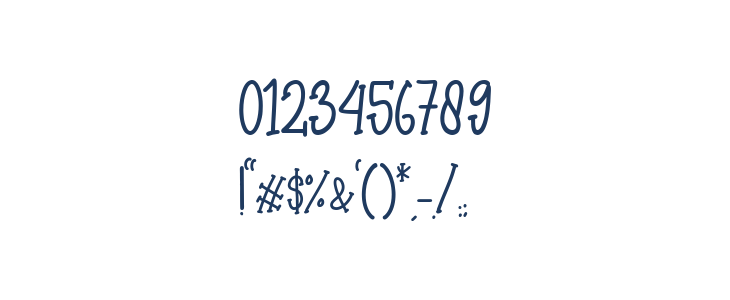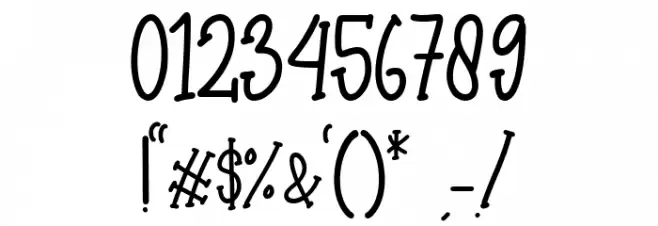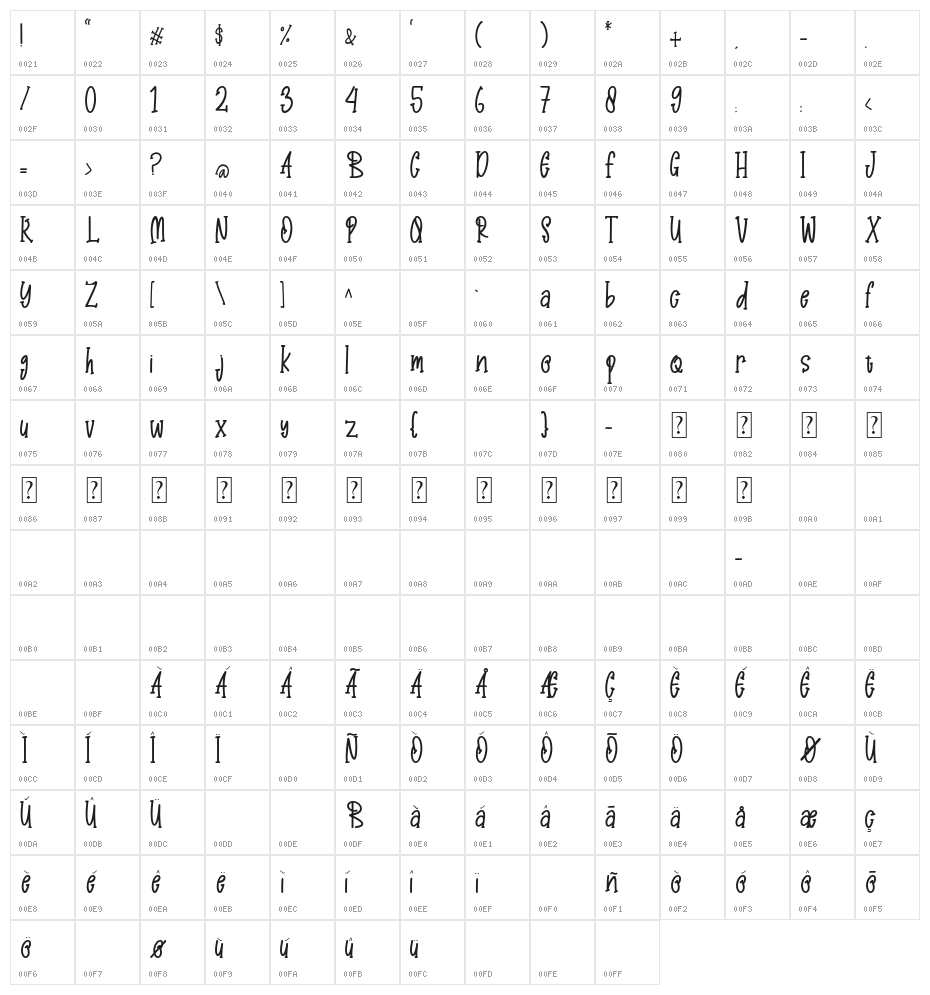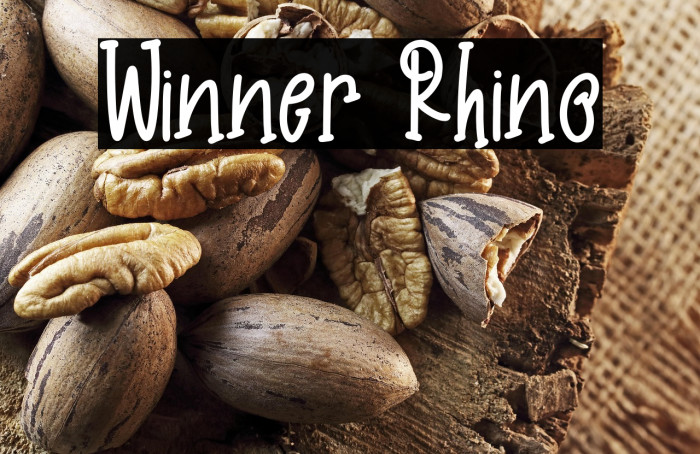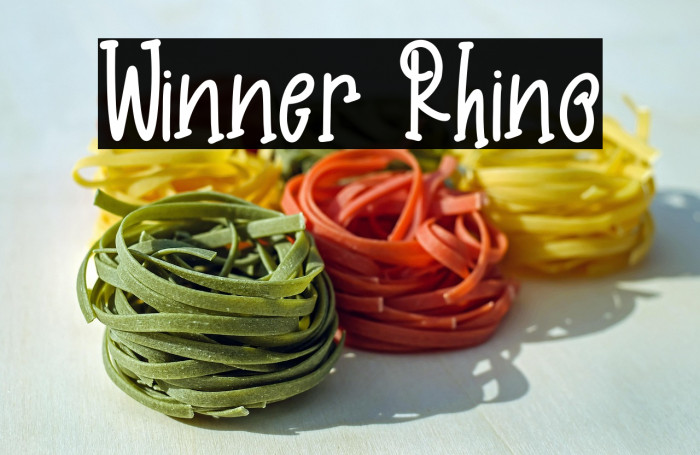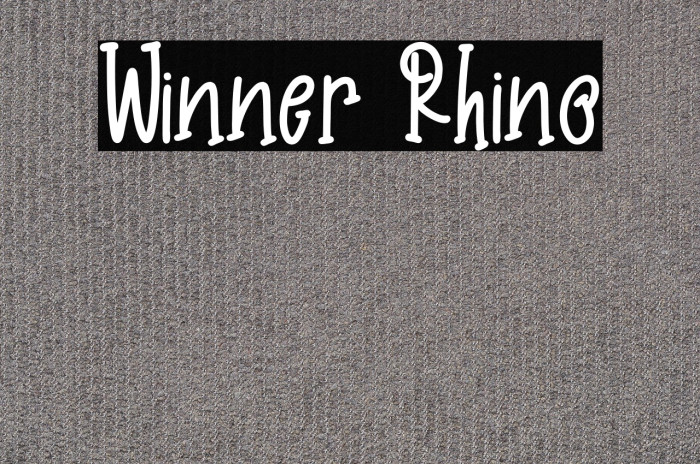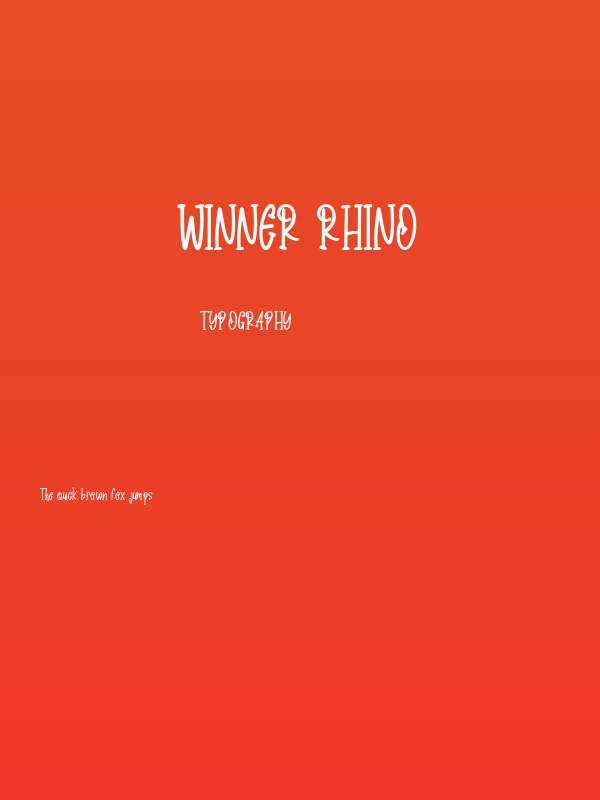
Winner Rhino Font
Winner Rhino Description
This playful and whimsical font features a handwritten style with a casual and friendly appearance. The letters are slightly irregular, giving it a charming and approachable feel. The strokes are moderately thick, providing good readability while maintaining a fun and informal vibe. The uppercase letters are bold and prominent, while the lowercase letters maintain a consistent flow, enhancing the font's overall coherence. Numbers and special characters are designed to match the playful aesthetic, making this font versatile for various creative projects.
| Proposed Projects | Ideal for children's books, greeting cards, playful branding, and social media graphics. |